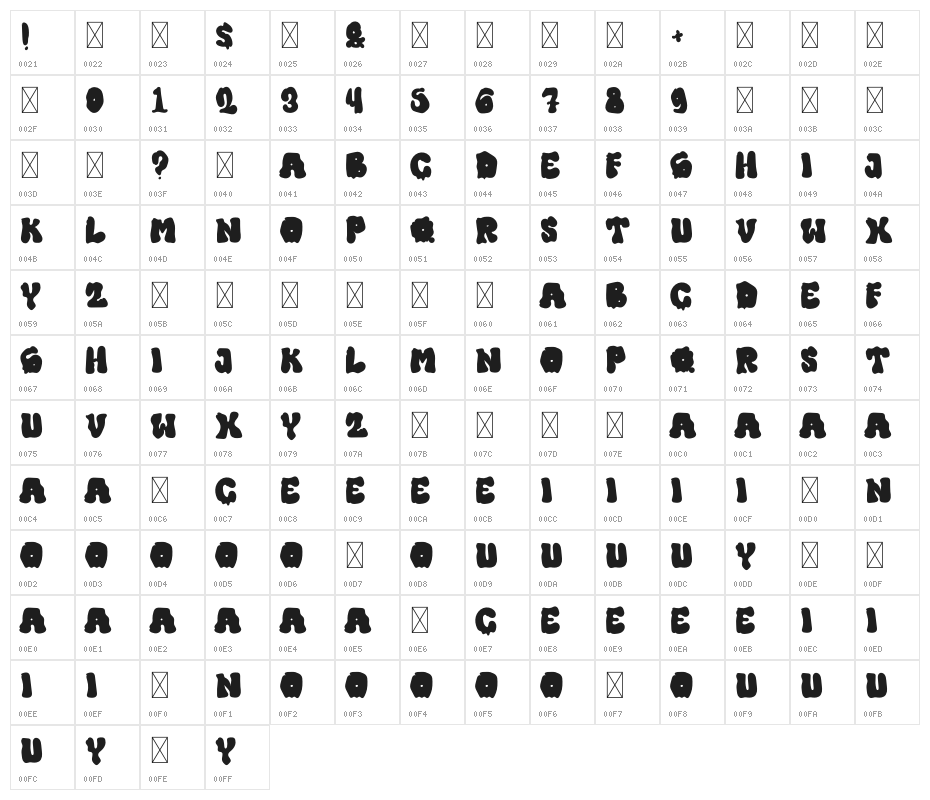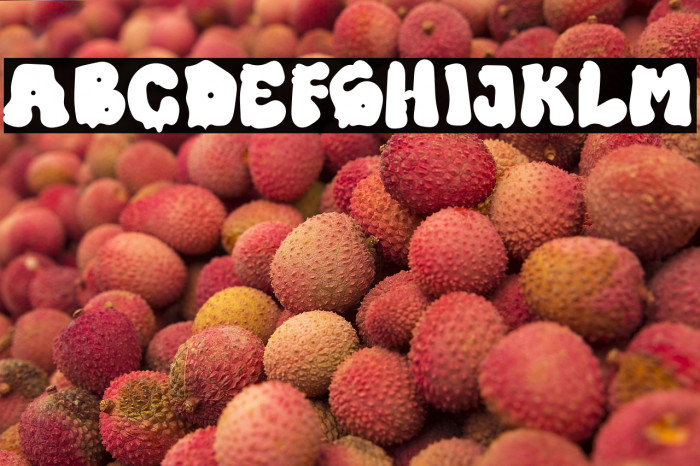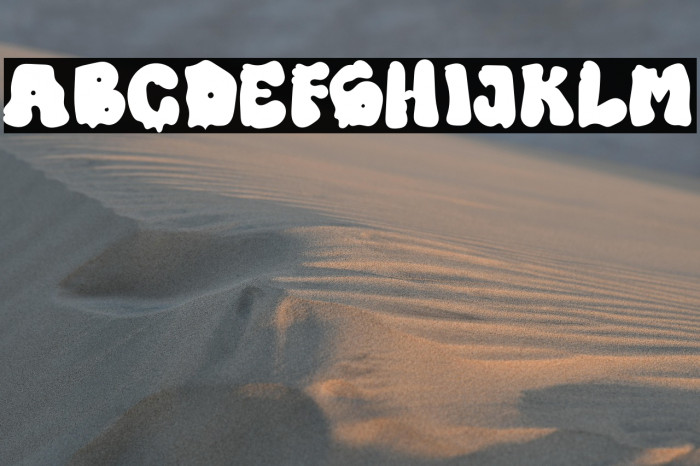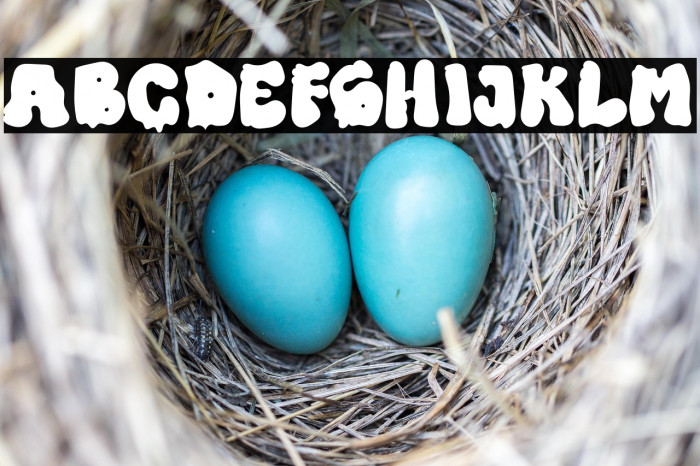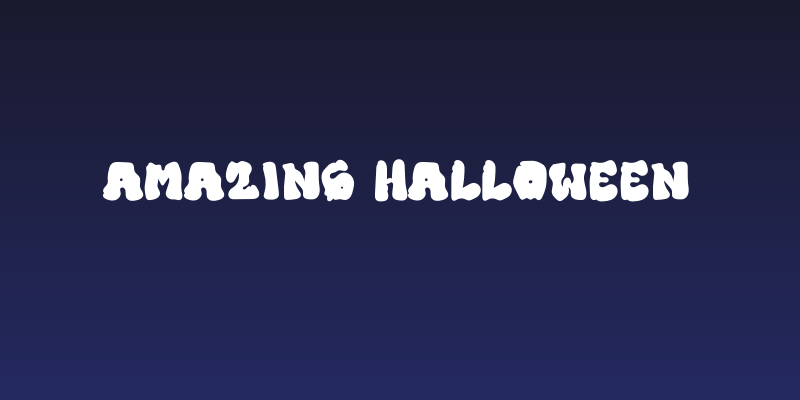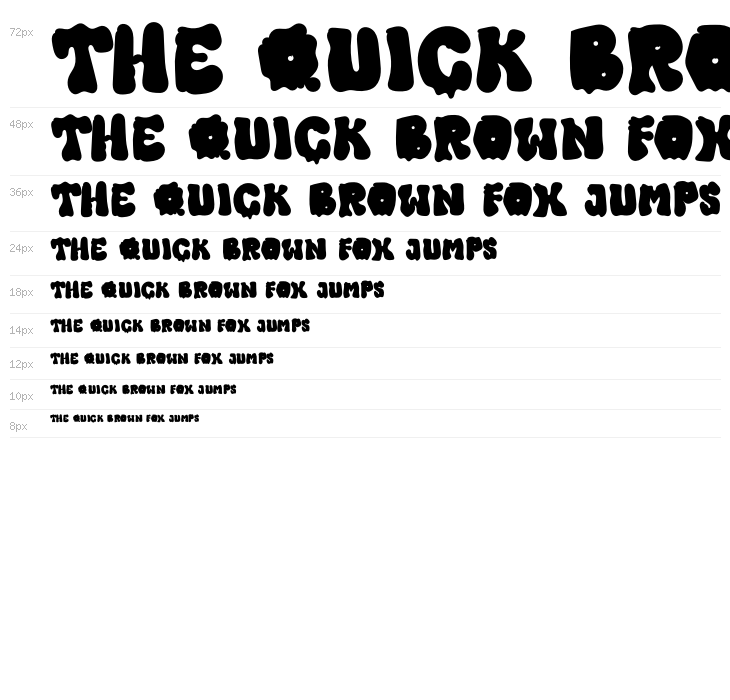
Amazing Halloween Font
Amazing Halloween Description
This font exudes a playful yet eerie vibe, perfect for Halloween-themed projects. The characters are bold and rounded, with irregular edges that give them a spooky, ghostly appearance. The font maintains a consistent weight throughout, ensuring readability while still delivering a unique style. The letters and numbers are designed with a whimsical touch, featuring subtle details that resemble drips or splatters, enhancing the Halloween aesthetic. The special characters are creatively integrated, maintaining the overall theme. This font is ideal for capturing attention and adding a festive, spooky flair to any design.
| Proposed Projects | Ideal for Halloween party invitations, themed posters, spooky banners, and festive merchandise. |